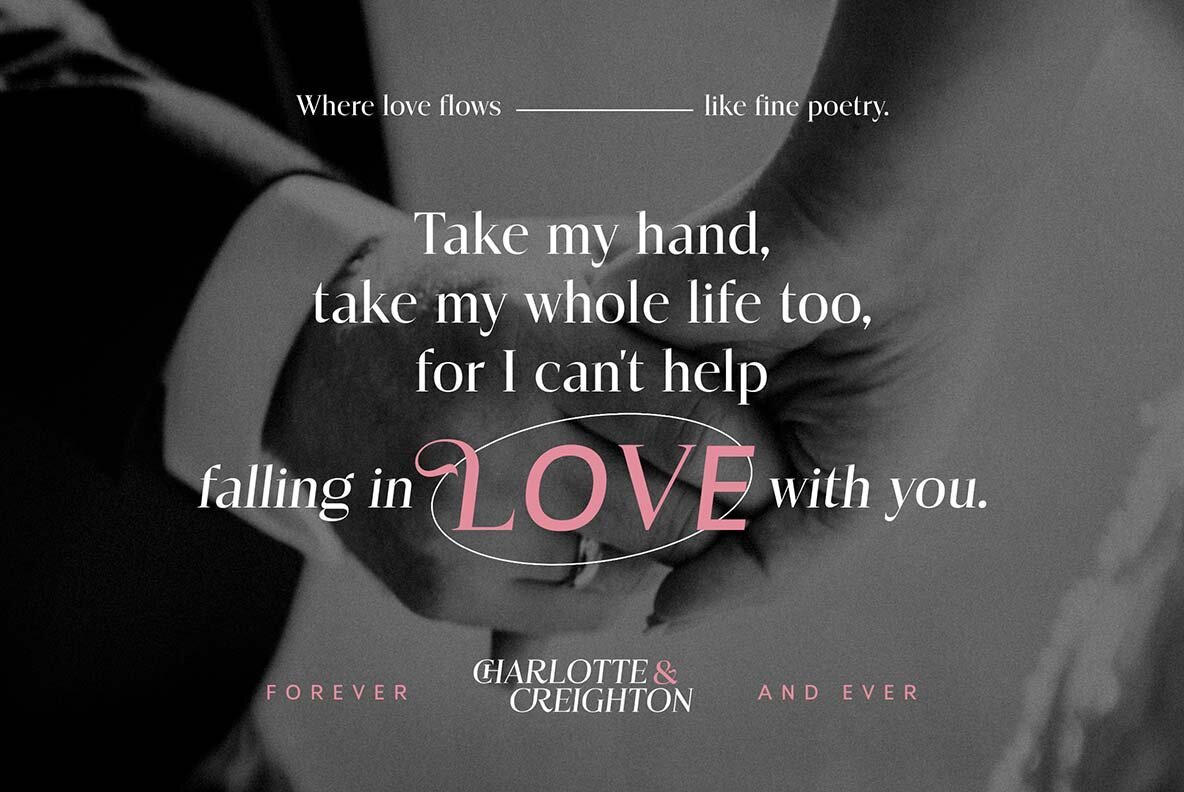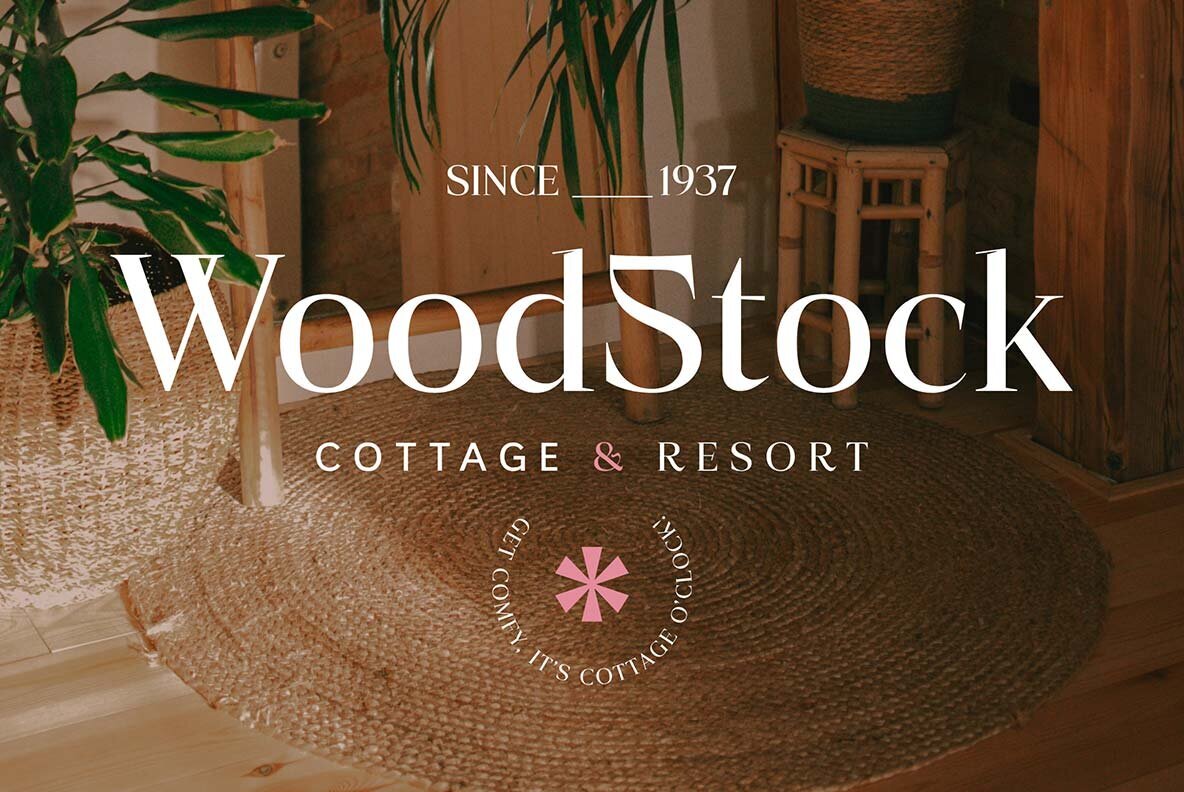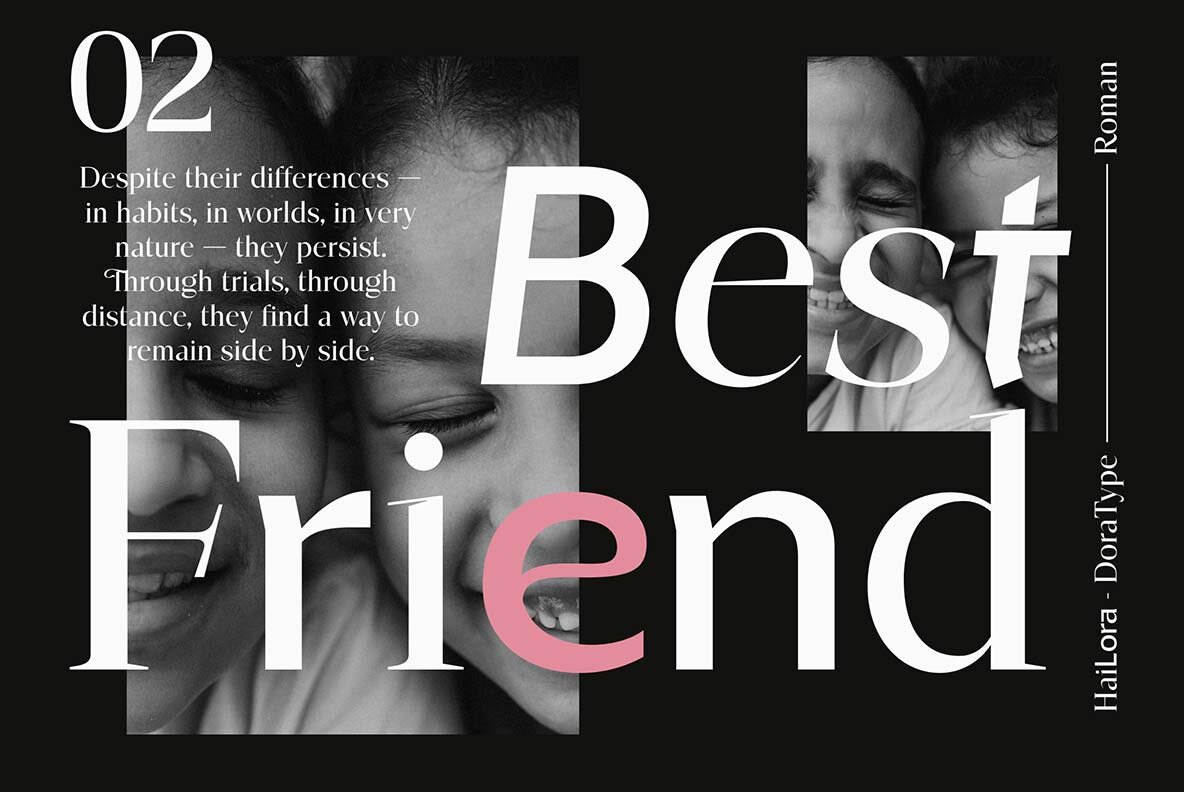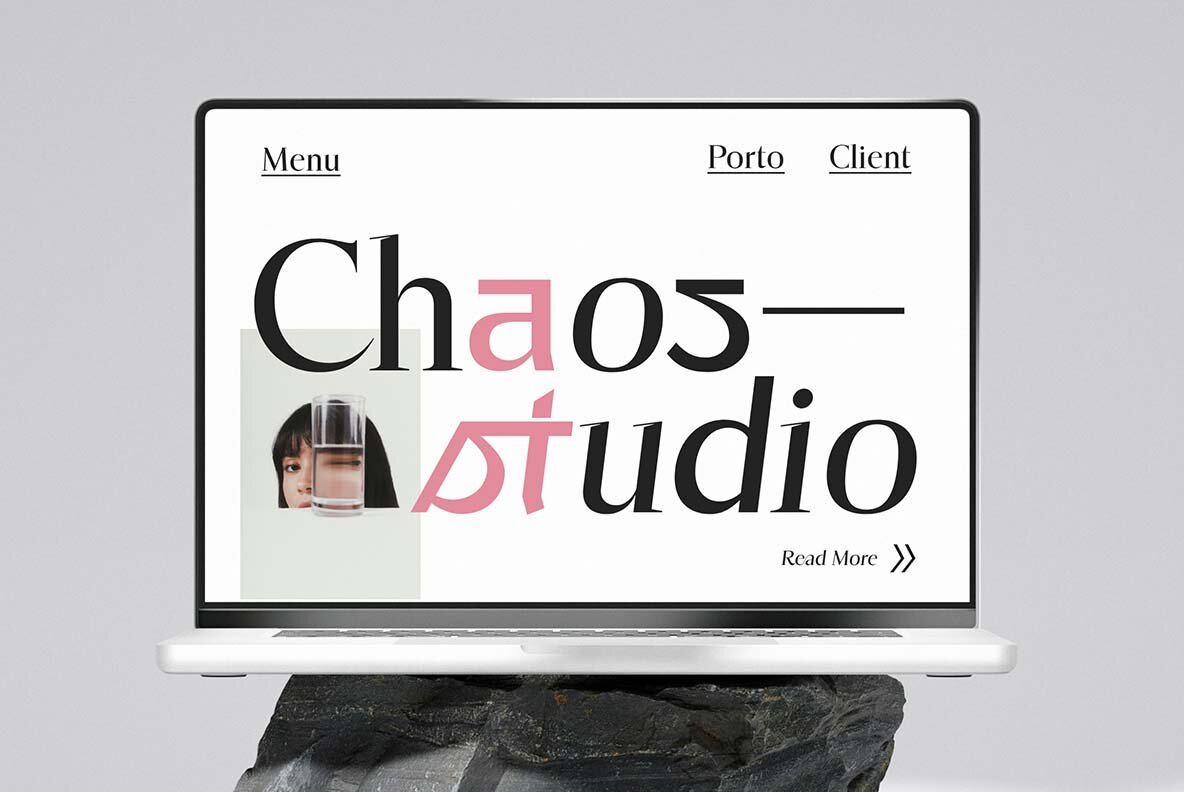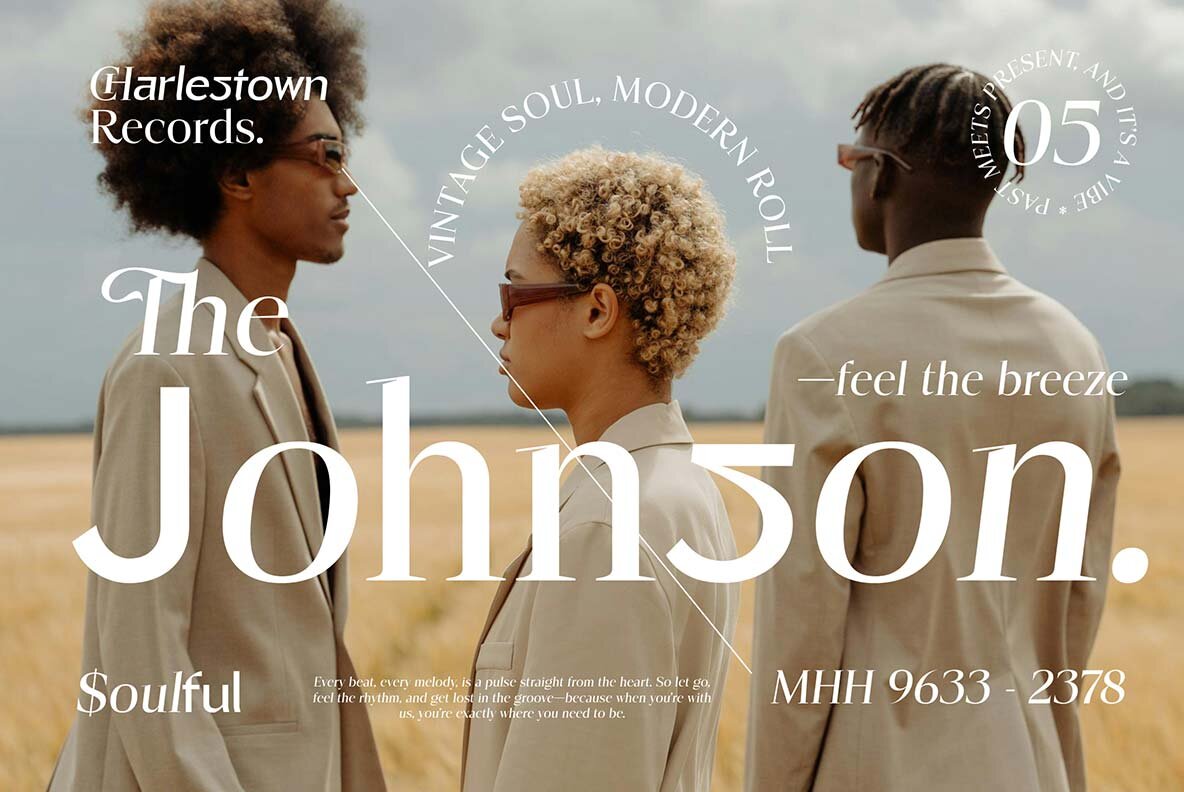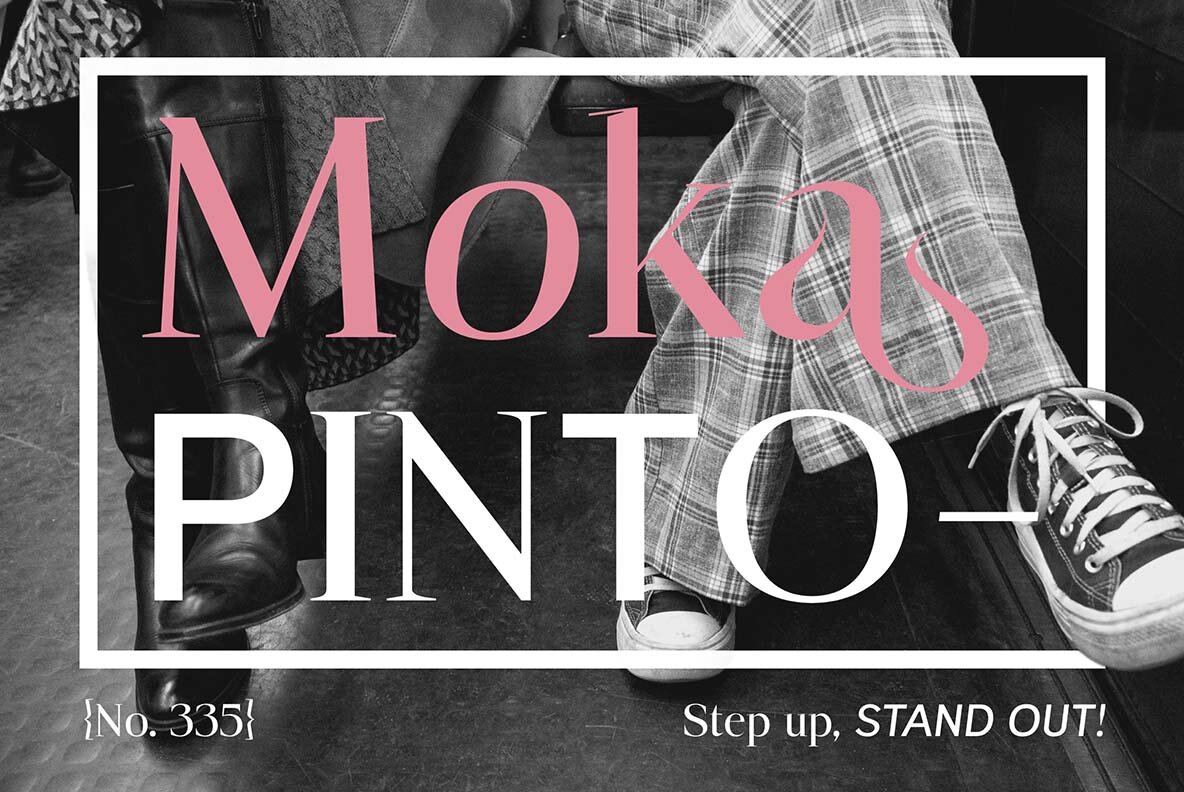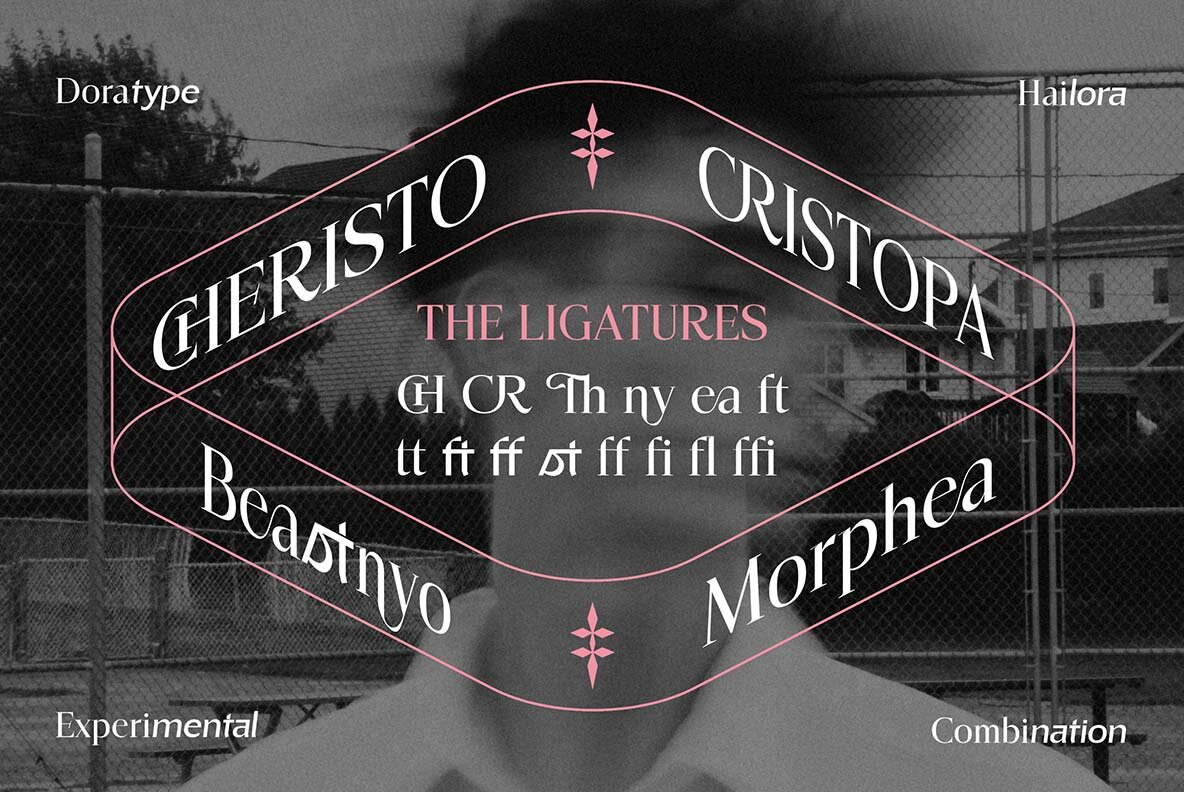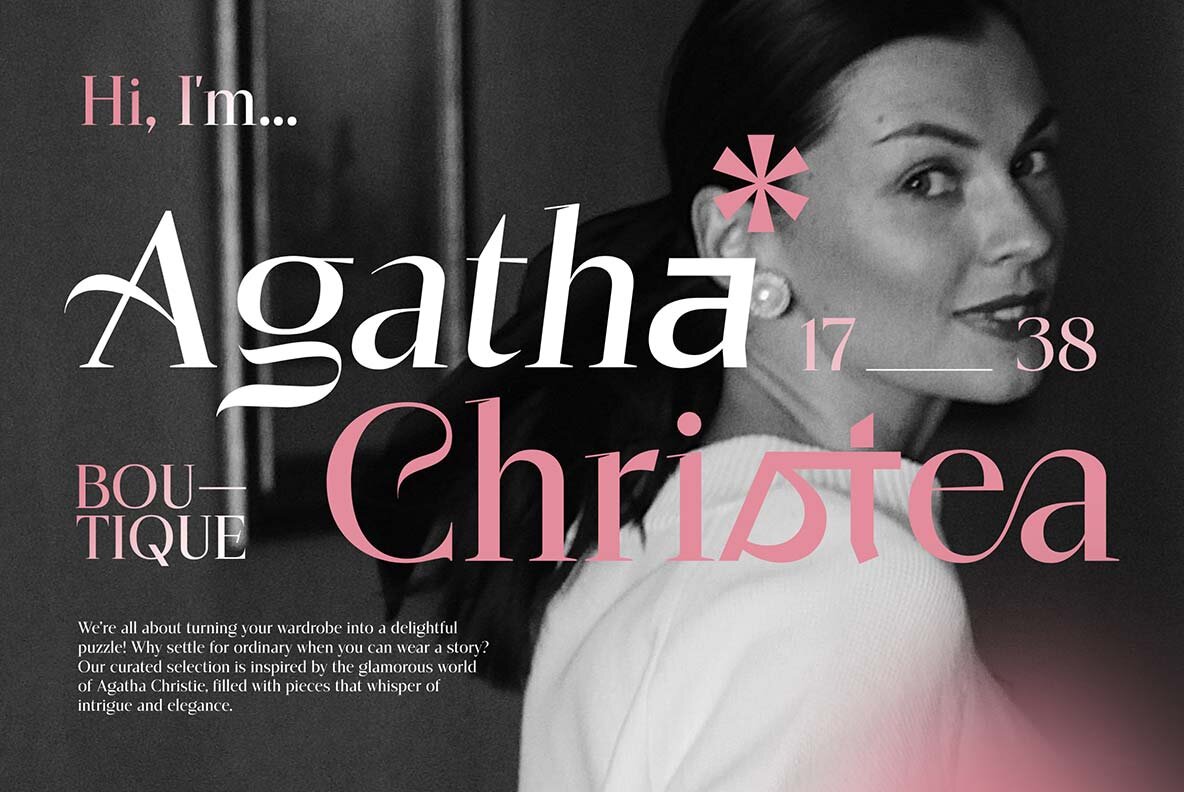
Hailora Font
Introducing Hailora, a distinct and innovative font duo that blends the elegance of serif with the versatility of sans serif styles. This pairing allows for dynamic typography designs, with the serif providing a modern touch and the sans serif offering an engaging alternative. The package includes uppercase and lowercase letters, numbers, symbols, punctuation, sans alternates, ligatures, and multilingual support to ensure comprehensive design applications.